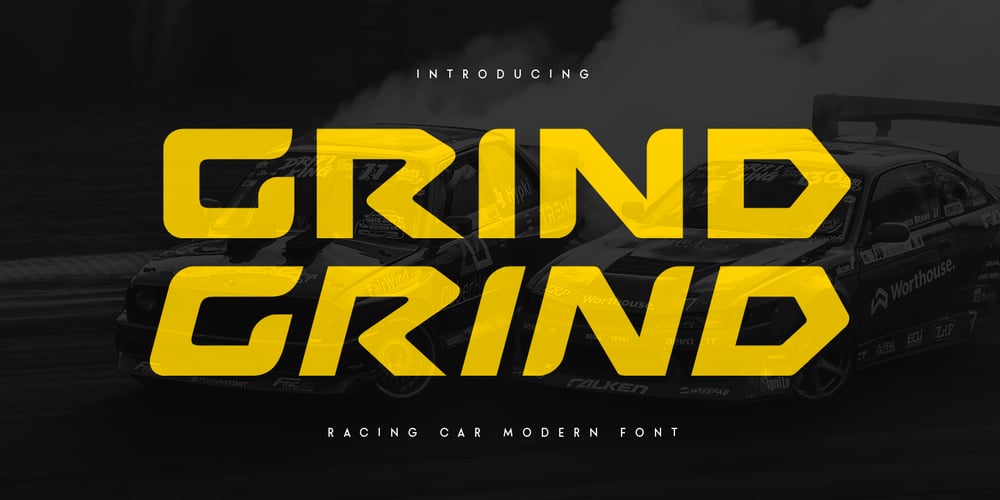
Grind Font Family was designed by Zamroni Hamzah and published by Sensatype Studio. Grind contains 2 styles and family package options. GRIND, a Racing Car Modern Font that created special for Branding, Title and more stand out typography for sport and action. It’s so perfect to add your style and headline overview for sport, technology, actions, and fighting theme. And specially for this font, we crafted for bold action style and modern feels so enjoy to create any project that will show your main idea out.GRIND Racing Car Modern Font ready with: Creative characters prepared to get best results 3 files format already Preview as a inspirations that you can do with Racer font Ready with All Uppercase characters Wish you enjoy our font. ๐